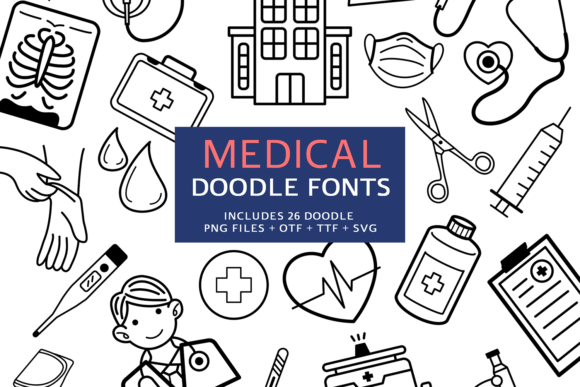
Introducing the Medical Doodle Font, the best font for expressing love in a fun and cute way! This dingbats font is created by digitalplannerland with a unique blend of creativity and playfulness.
Are you looking for a font that will make your craft projects stand out? Do you want to add some flair to your designs or planners? Look no further than the Medical Doodle Font! Its versatility is unmatched, making it perfect for a wide range of projects.
This font is not just any ordinary dingbats font. It is the best font for love-themed projects. With its charming and whimsical designs, you can express your feelings of love and affection in a fun and playful way. Whether you're creating a love-themed activity book, designing a planner for Valentine's Day, or crafting a special card for your loved one, the Medical Doodle Font is the perfect choice.
But don't let its name fool you, this font is not just for medical-related projects. Its designs are perfect for adding a touch of creativity and imagination to any project. From scrapbooking to journaling to creating digital art, the Medical Doodle Font will elevate your designs to the next level.